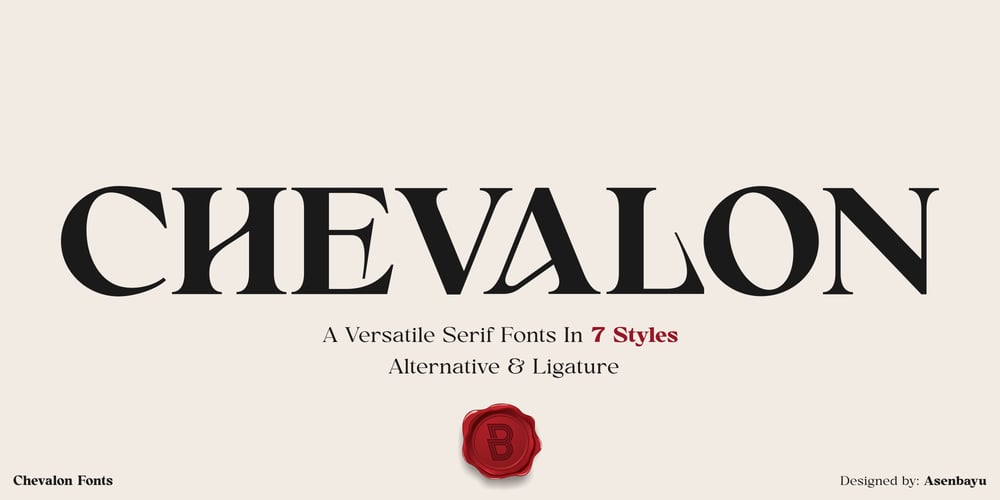
Chevalon
Chevalon font
Chevalon Font Family was designed by Bayu Noor Witarsa and published by Asenbayu. Chevalon contains 7 styles and family package options. Chevalon is a versatile serif font consisting of 7 styles. Inspired by medieval roman letter, the Chevalon is like a glorious horse that has a strong yet elegant appearance. Each Chevalon letter is carefully crafted.Chevalon fonts can help you complete various projects such as luxury brand logos, journals, business cards, headlines, products, social media posts, web and much more. If you are involved in a project that requires strong, elegant and professional writing, Chevalon font is perfect to help you get it done.